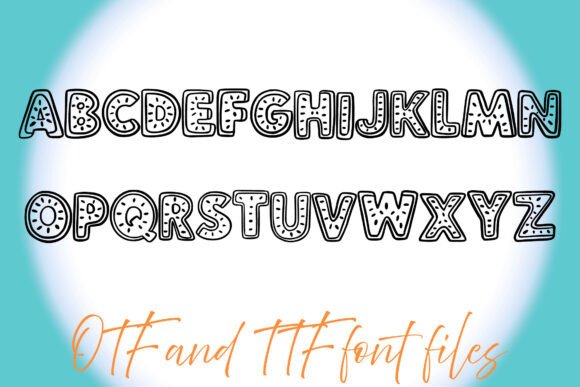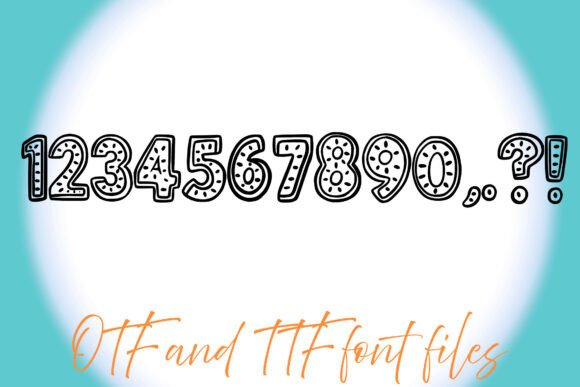
Citrus Fruit Font
Juicy and vibrant, Citrus Fruit Font is a zesty display typeface that’s full of flavor. Designed with fun citrus textures and a playful personality, this font is perfect for food packaging, children’s designs, summer invitations, and anything that needs a fresh, fruity twist.